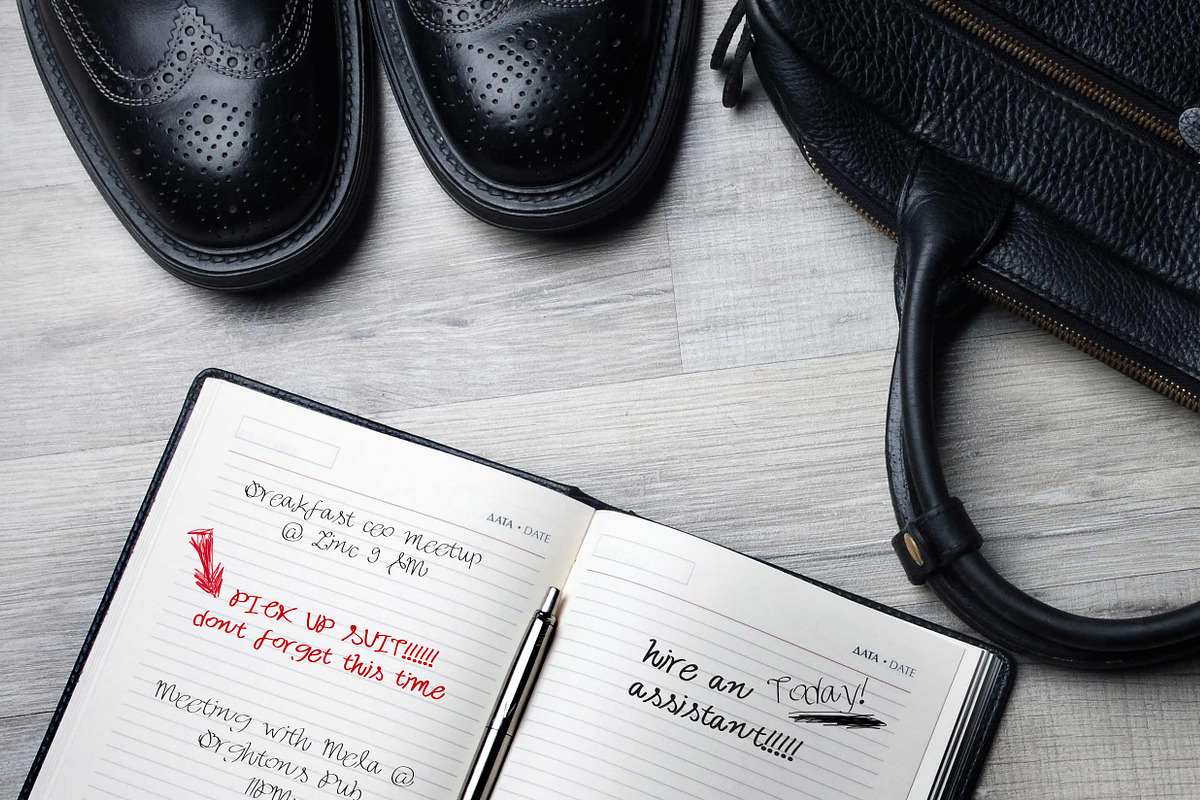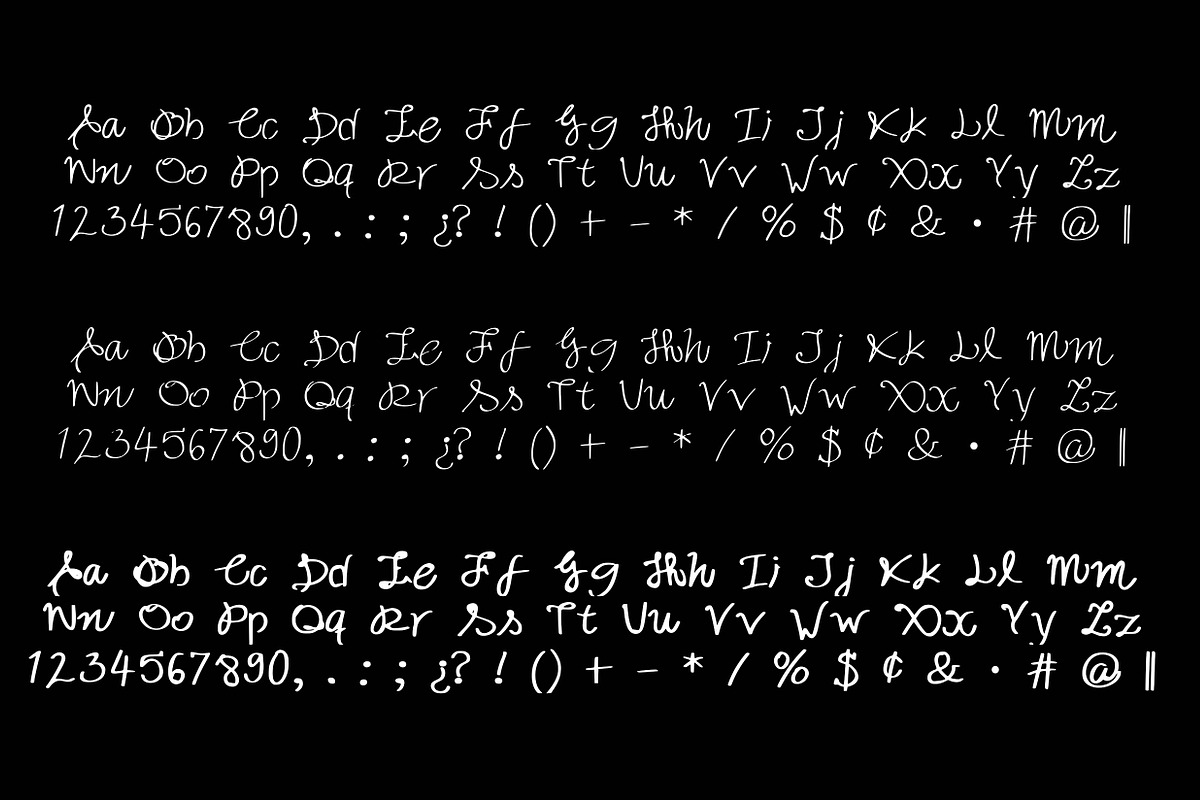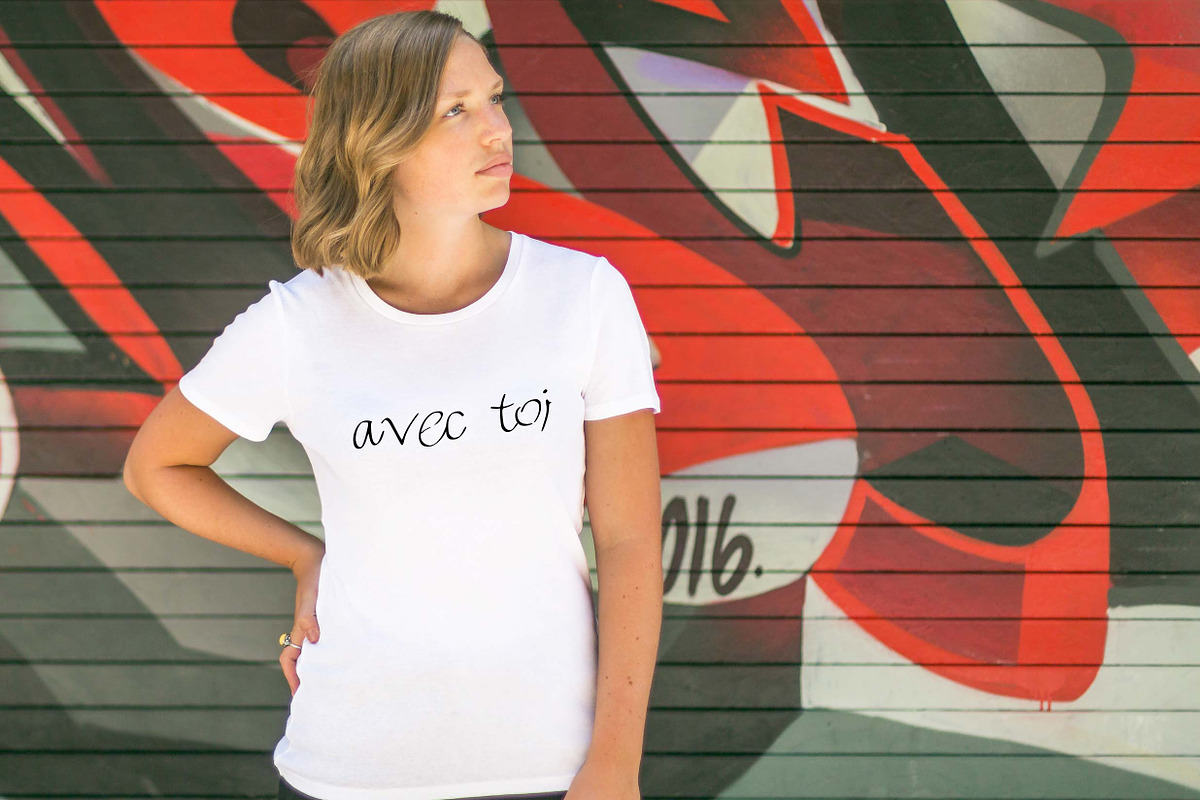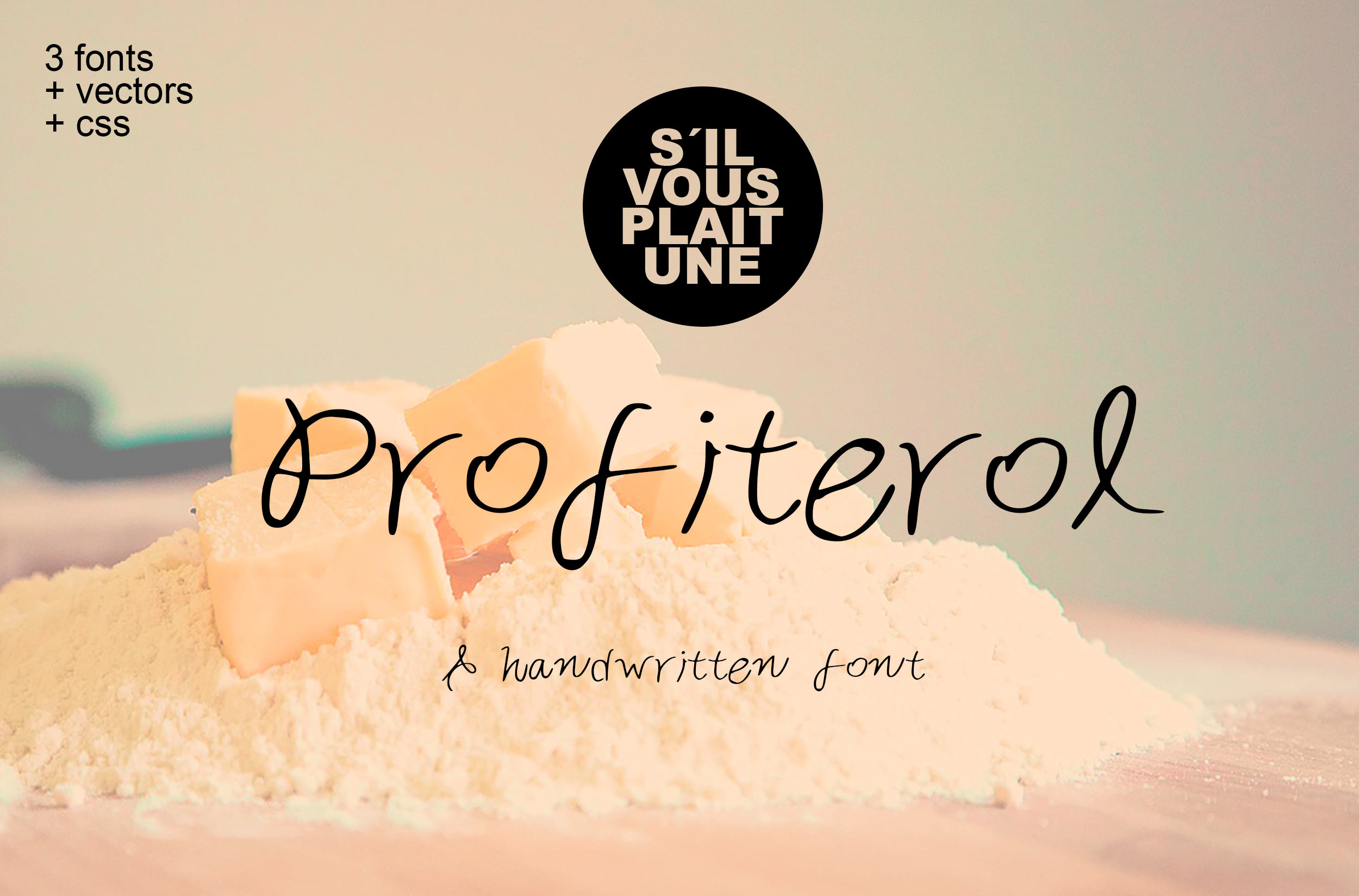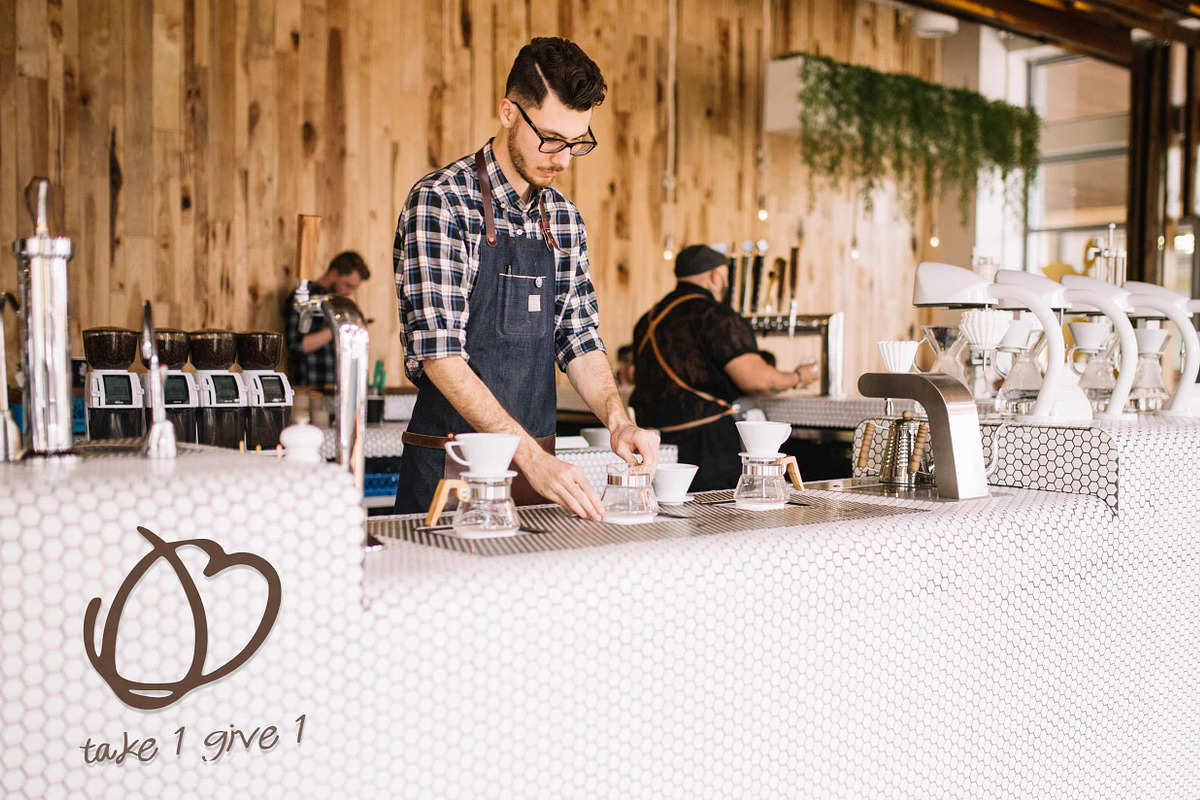
Profiterol Handwritten Font
As a Profiterol, sweet, simple, elegant, and sassy, this font was made to make you feel closer to a person and not to a computer.
Handmade for you. "Profiterol" suits perfectly to handwritten messages, elegant designs, friendly environments, it even has a slight french touch on it. You could also use the CAPS as logos itself as shown in picture 3.
- 3 types of Profiteroles (Medium, Light, Bold)